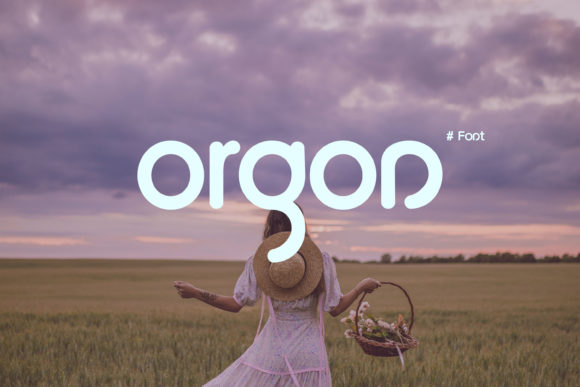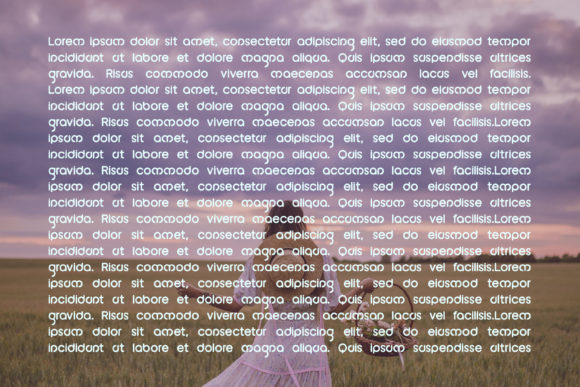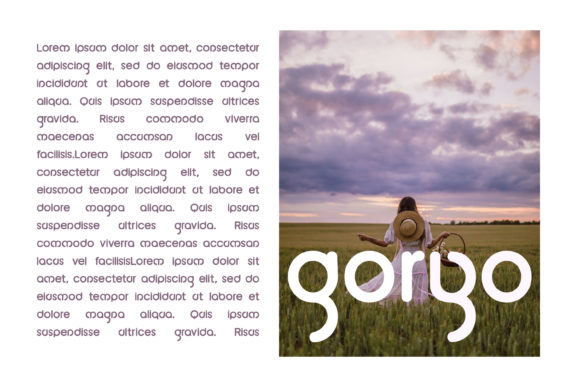
Introduction to Goryo Font
Goryo is a clean and modern looking display font.
Add this minimalist and techno styled font to your web designs, logos or pretty much anything that requires a smart, cool touch .
Key Features of Goryo Font